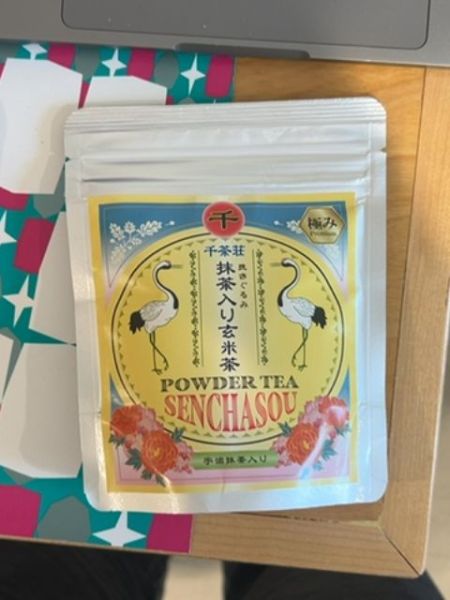
Senchasou Powder Tea
A type of tea powder blend that is typically used for making tea, likely combining the flavors of sencha and perhaps genmaicha, offering a unique and aromatic taste experience.
The typography on the packaging uses a mix of serif and sans-serif fonts. The prominent use of a bold serif font for 'SENCHASOU' gives it a classic and strong presence, while the smaller sans-serif fonts offer clarity and modern readability. The combination of fonts reflects a harmonious blend of tradition and modernity.
The packaging features a colorful front with decorative illustrations of cranes and floral motifs, which convey a sense of traditional elegance. It uses a resealable pouch that is practical for maintaining the freshness of the tea powder.
- The packaging includes traditional Japanese symbols and imagery.